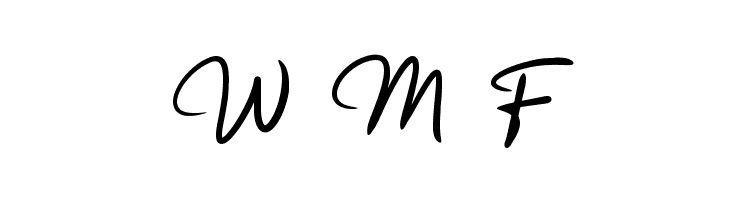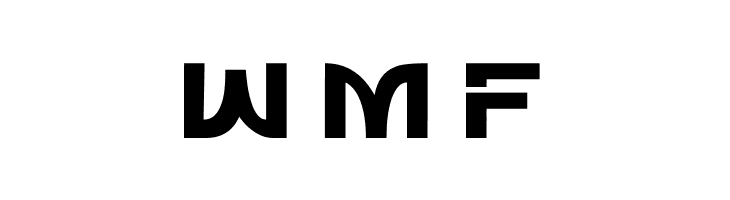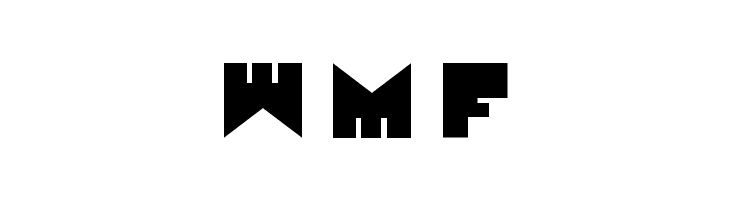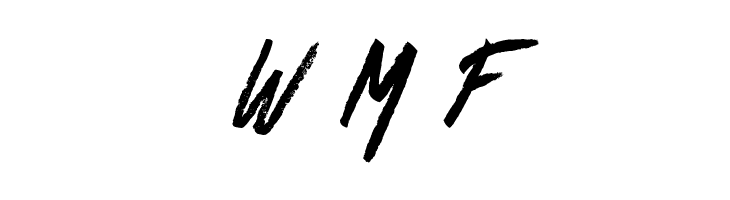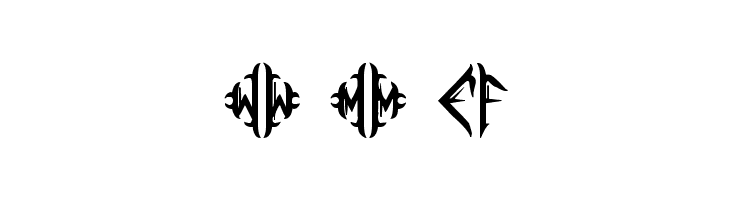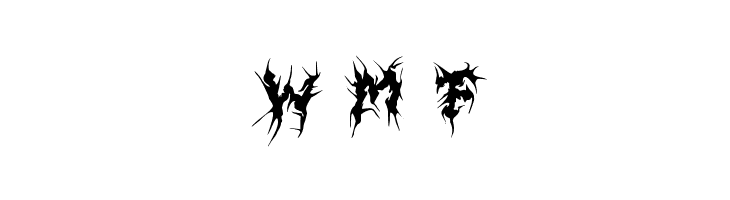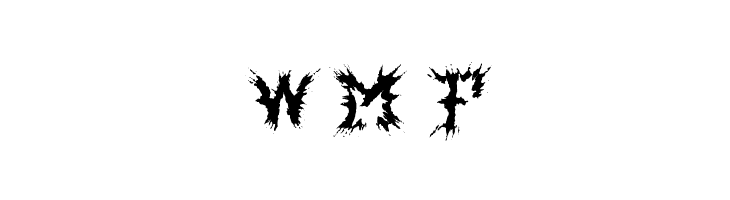
A flowing, cursive font with elegant, sweeping lines and a dynamic appearance.
A bold, thorny font with a gothic, horror-inspired aesthetic.
A jagged, eerie font ideal for horror themes.
A bold, geometric font with sharp angles and strong visual impact.
A bold, angular font with a futuristic, mechanical design.
An ornate, gothic-style font with intricate, angular designs.
A bold, gothic-style font with intricate, symmetrical designs and sharp angles.
A bold, dynamic brush script with expressive, fluid strokes and a handmade feel.